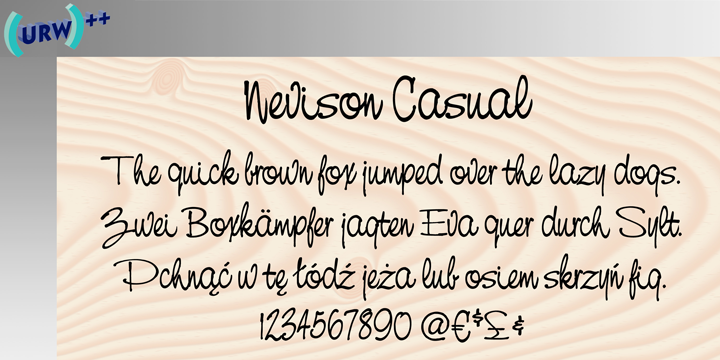
Nevison Casual Font is ideal for lifestyle blogs, casual restaurant menus, friendly social media posts, relaxed wedding invitations, cozy coffee shop signage, personal branding materials, informal greeting cards, weekend event flyers, comfortable clothing brands, and approachable marketing campaigns.
What makes Nevison Casual Font exciting is its perfect balance between relaxed informality and professional readability that creates an instantly approachable and friendly atmosphere. This versatile typeface captures the essence of casual elegance with its organic curves and comfortable spacing, making readers feel at ease while maintaining complete legibility. The font's warm personality transforms formal communication into friendly conversations.
Nevison Casual Font family includes regular and bold weights with complementary italic variations. The character set provides comprehensive coverage including standard punctuation, accented characters for international use, and stylistic alternates that add personality to headline treatments and display applications.
Marketing professionals love using Nevison Casual Font Free Download for campaigns that need to connect with audiences on a personal level without sacrificing professionalism. This remarkable typeface bridges the gap between corporate communication and human connection, making it essential for brands seeking authentic engagement with their customers. The carefully crafted letterforms ensure consistent performance across all media while maintaining the relaxed charm that makes every message feel genuinely personal and inviting.